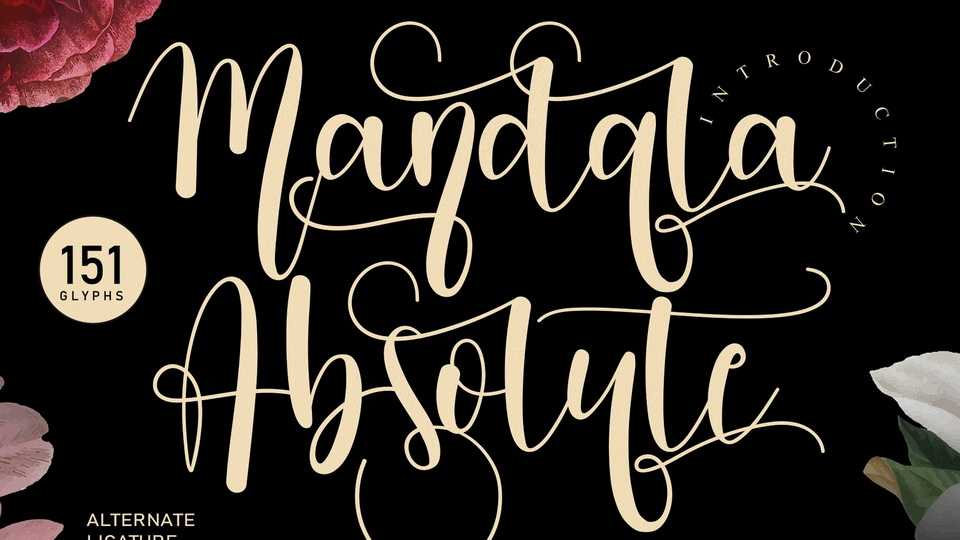
Download Mandala Absolute font, a dazzling and highly detailed script typeface carefully created with a touch of elegance. Mandala Absolute font is perfect for any project that requires taste handwriting.